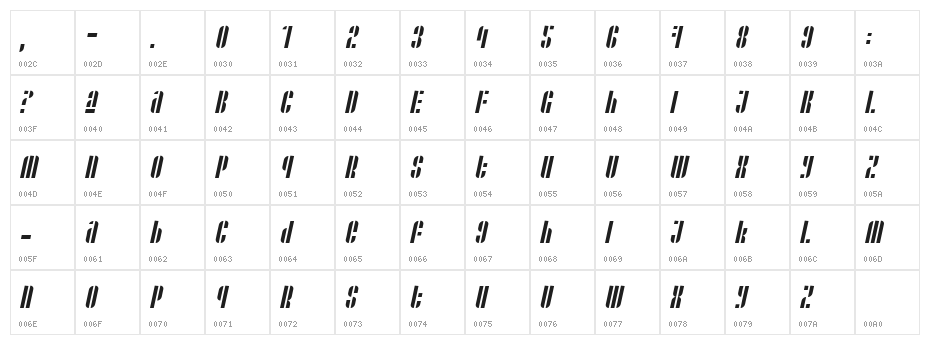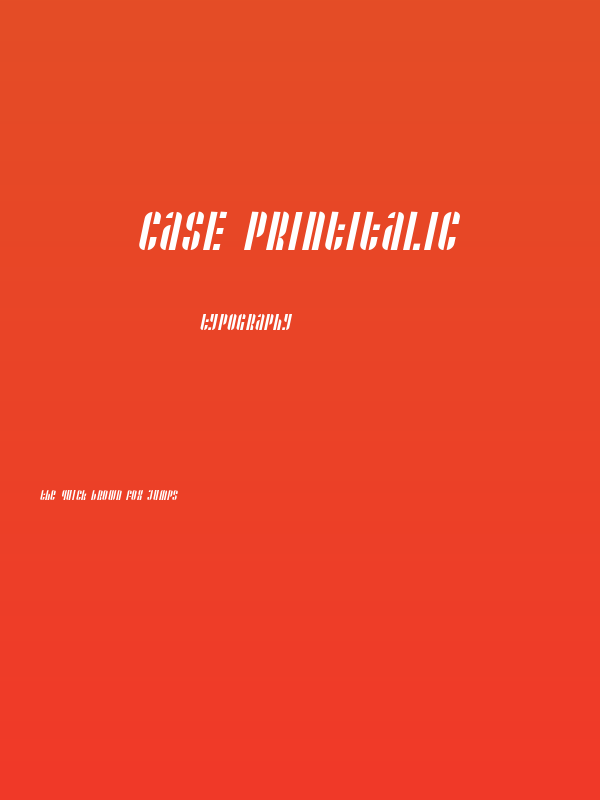
Case printitalic Font
Case printitalic Description
This font features a bold and italicized style with a strong, dynamic presence. The characters are slanted, giving a sense of motion and energy. The strokes are thick and consistent, creating a bold appearance that stands out. The font has a modern and edgy feel, suitable for making a statement. The uppercase and lowercase letters maintain a uniform style, with sharp angles and clean lines. The numbers and special characters follow the same design principles, ensuring a cohesive look across all text elements.
| Proposed Projects | Ideal for branding, advertising, posters, and headlines where a strong impact is desired. |